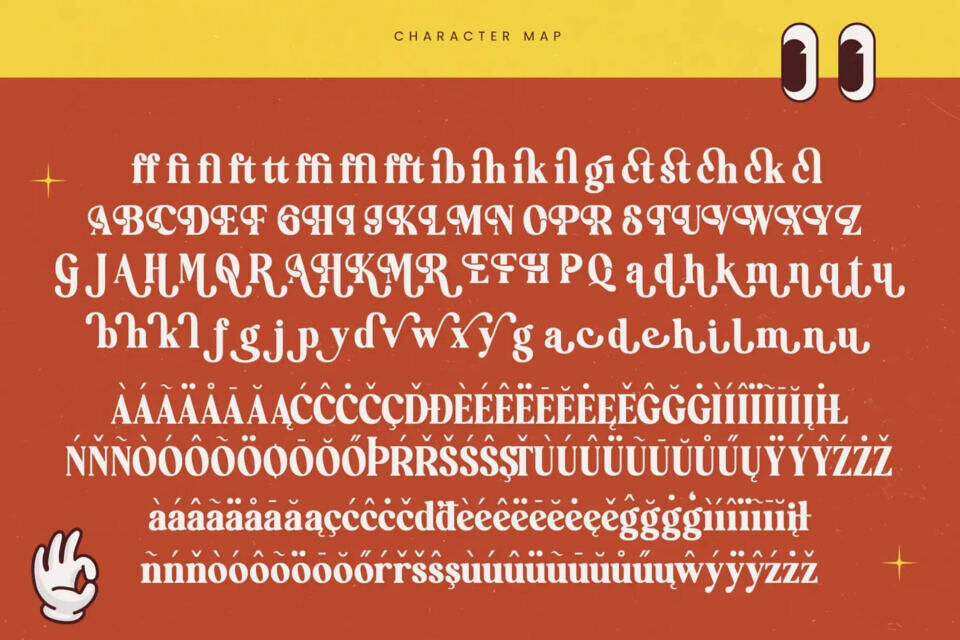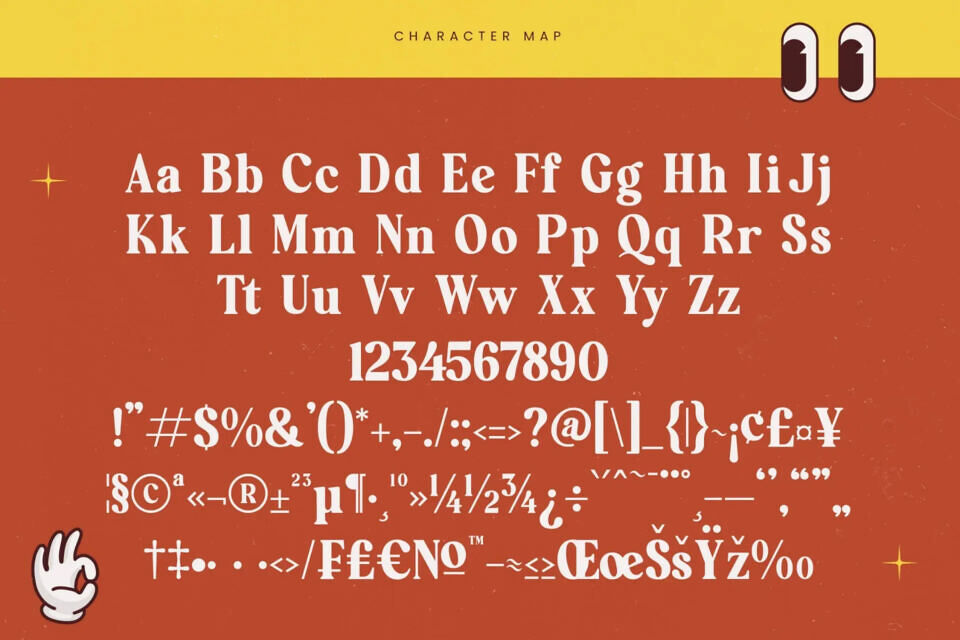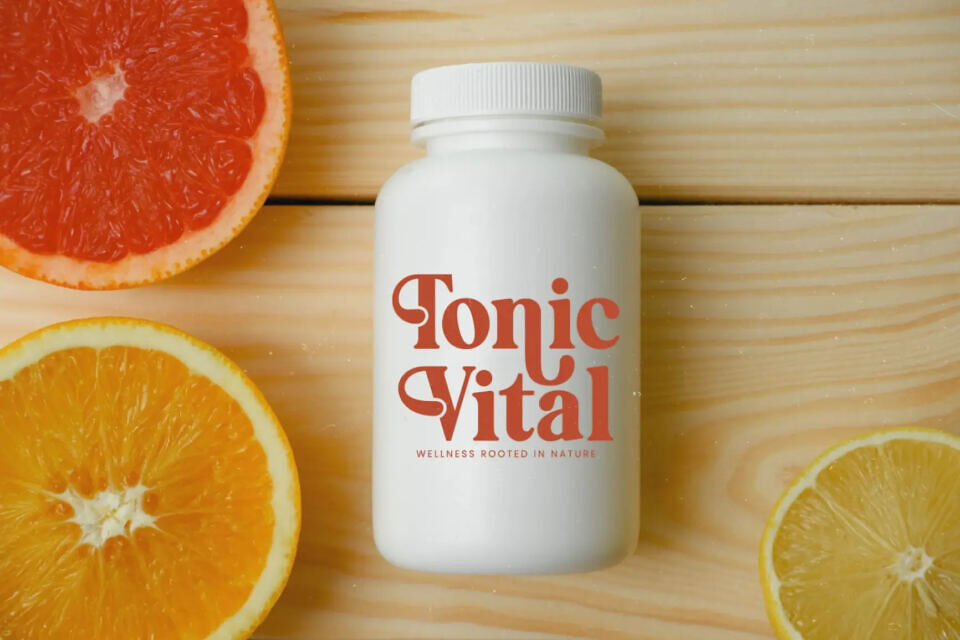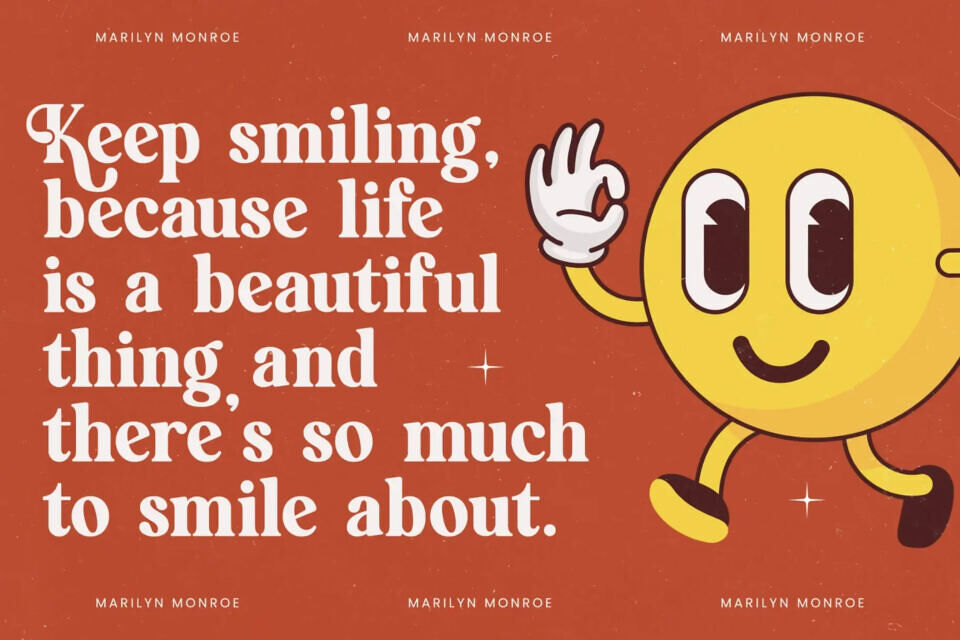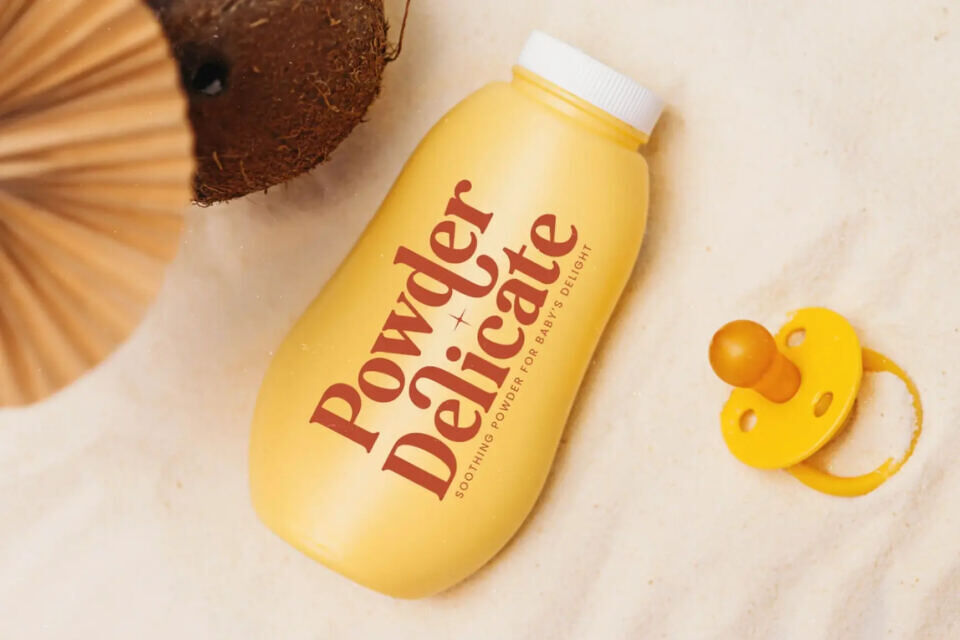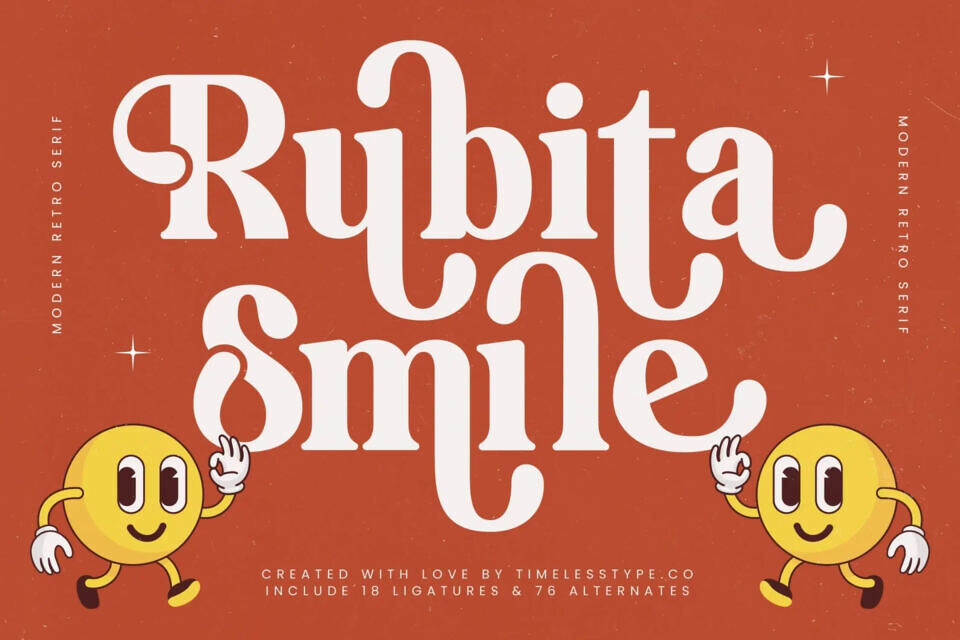
Rubita Smile Font
The Rubita Smile typeface blends modern elegance with retro charm, offering a playful yet sophisticated look. With 18 ligatures and 76 stylistic alternates, designers can create unique typography.
This font is ideal for projects that require a fun, friendly, and vintage vibe, working well in editorial, branding, and entertainment designs, and adapting seamlessly to digital formats, making it a versatile choice for various creative needs.